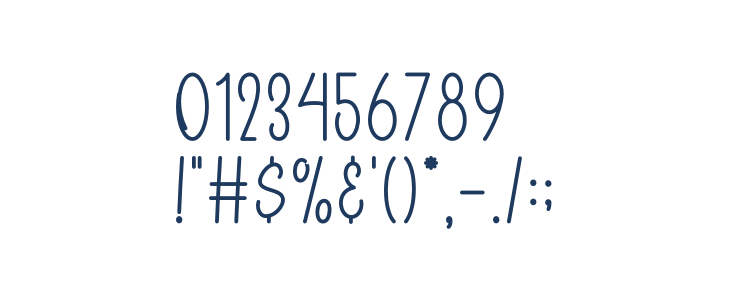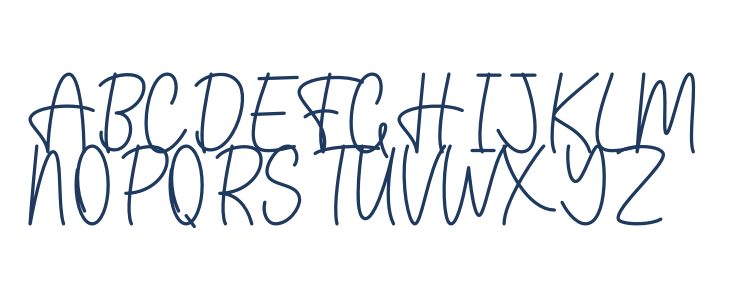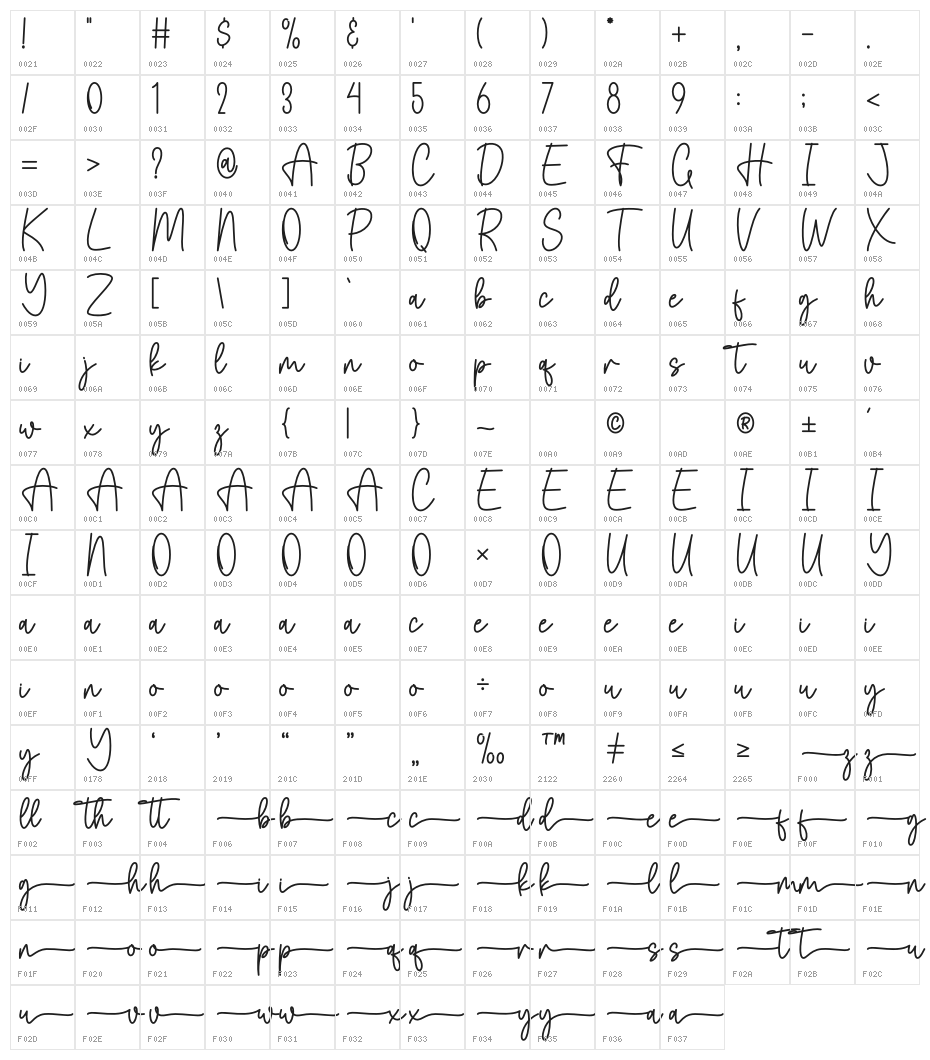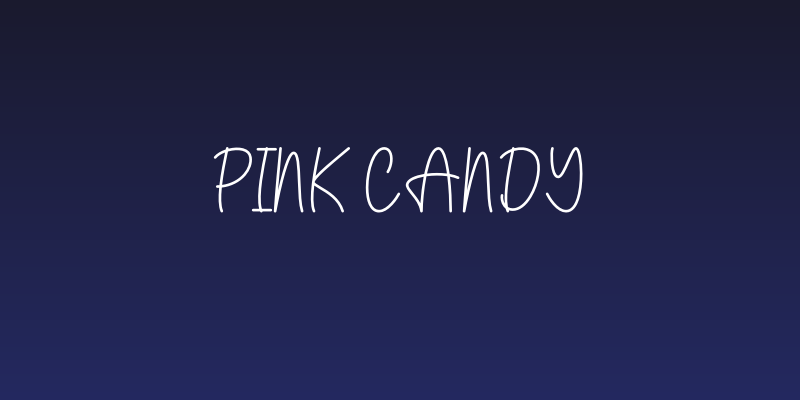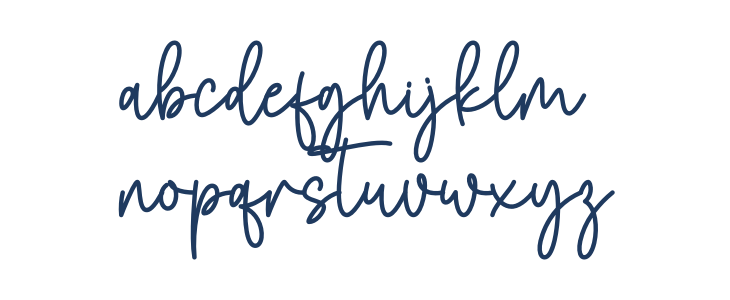
Pink Candy Font
Pink Candy Description
A playful, handwritten script font with tall, narrow characters and a casual, flowing style. The strokes are thin and consistent, giving it a light and airy appearance. Both uppercase and lowercase letters are included, with some characters featuring loops and flourishes. Numbers and a variety of punctuation marks are also present.
| Width | Condensed |
| Overall Style | Playful, Casual, Whimsical |
| Use Case | Headlines, Logos, Decorative text, Short quotes |
| Proposed Projects | Greeting cards, invitations, playful branding, social media graphics, children's products. |